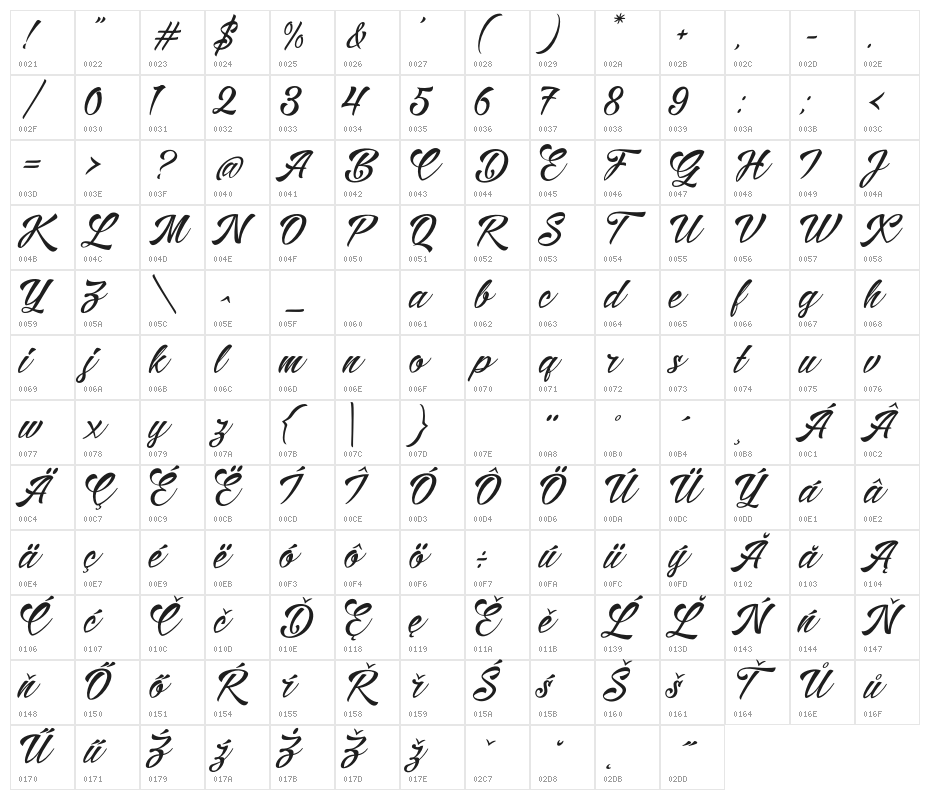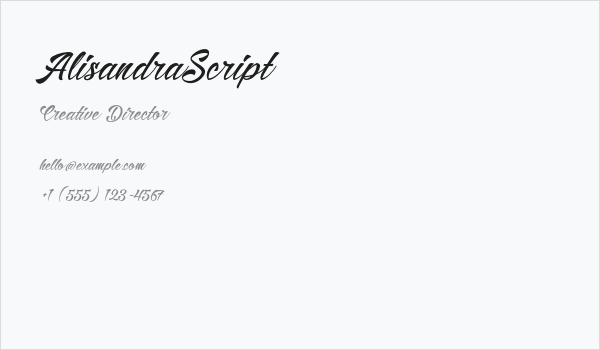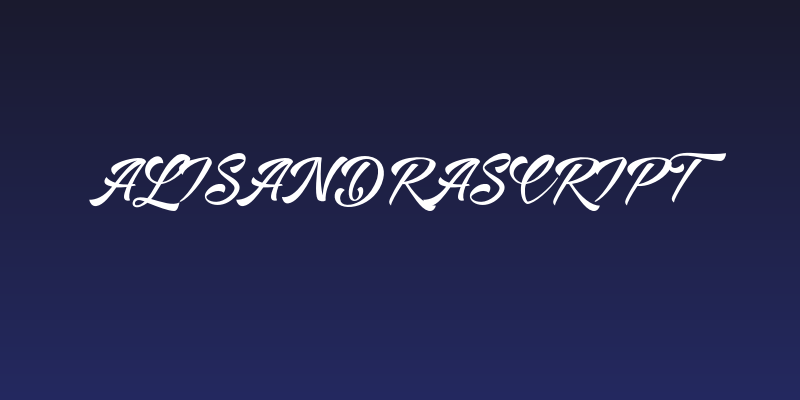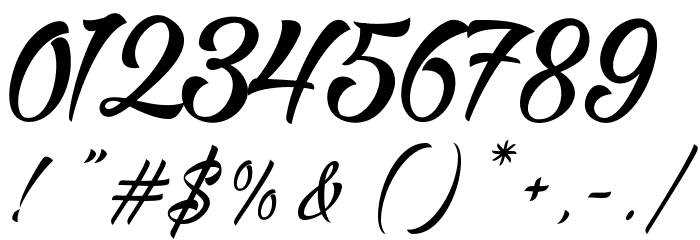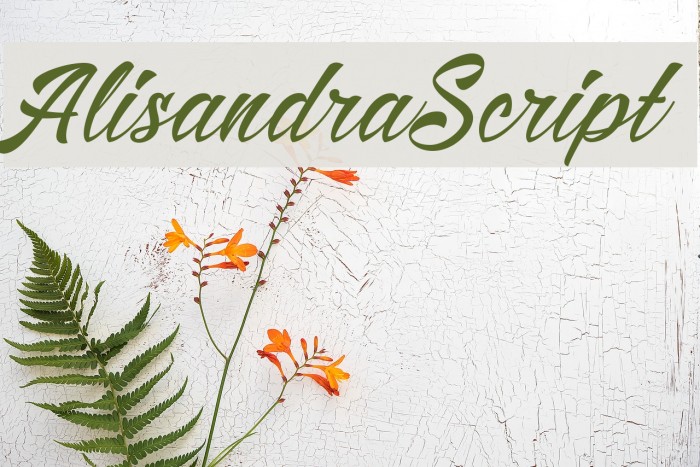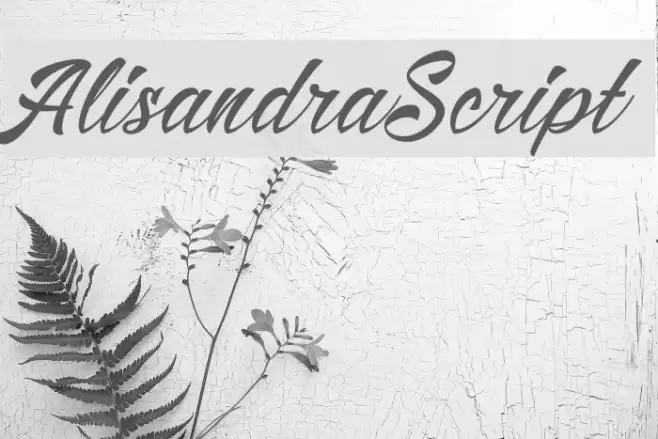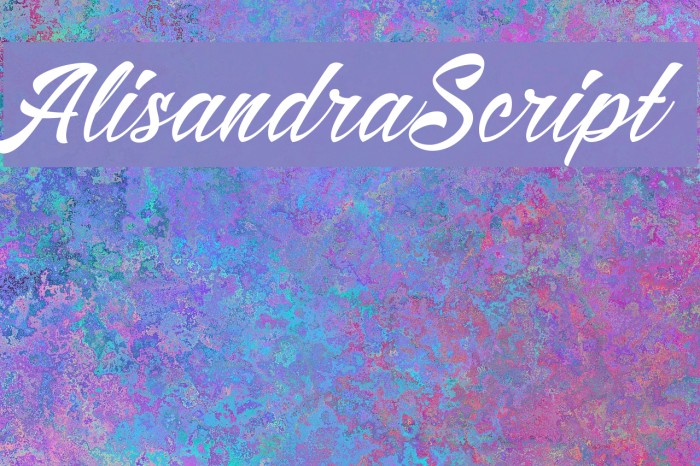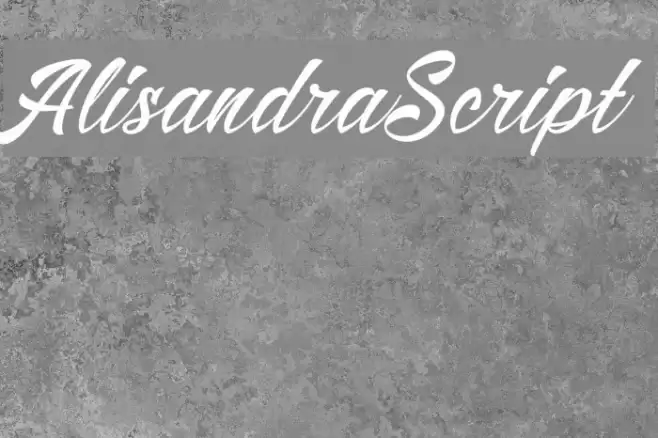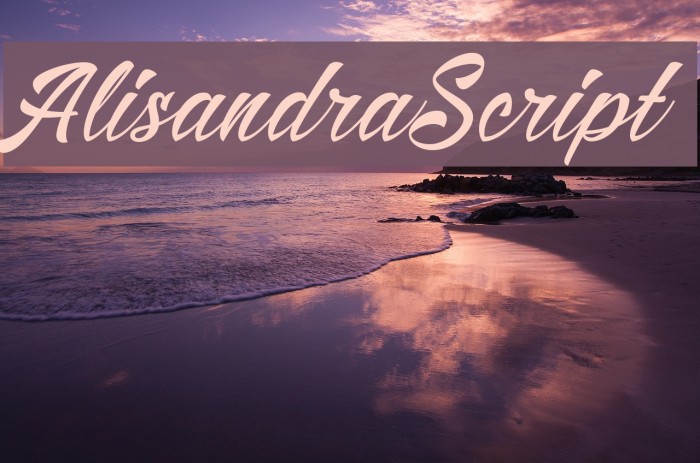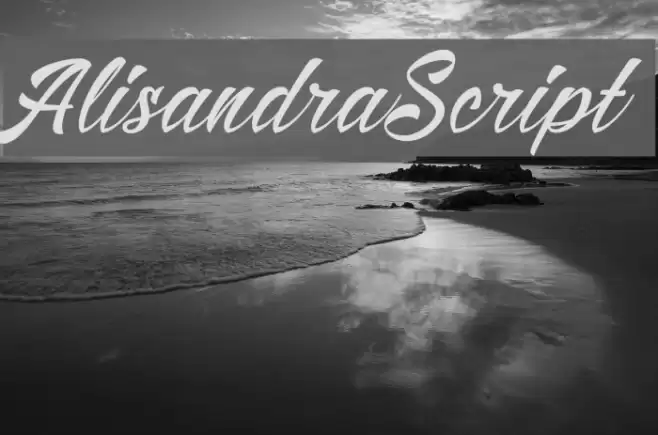
AlisandraScript Font
AlisandraScript Description
This elegant script font features flowing, cursive letters with a classic and sophisticated appearance. The uppercase letters are ornate, with sweeping curves and flourishes that give a sense of movement and grace. The lowercase letters maintain a consistent style, with smooth connections between characters, enhancing readability while preserving the decorative nature. The numerals are bold and clear, matching the overall aesthetic of the font. Special characters are designed to blend seamlessly with the letters, ensuring a cohesive look across all text. This font is perfect for projects that require a touch of elegance and formality.
| Overall Style | Classic |
| Use Case | Logos, Invitations, Decorative text |
| Proposed Projects | Ideal for wedding invitations, elegant branding, greeting cards, and formal event programs. |